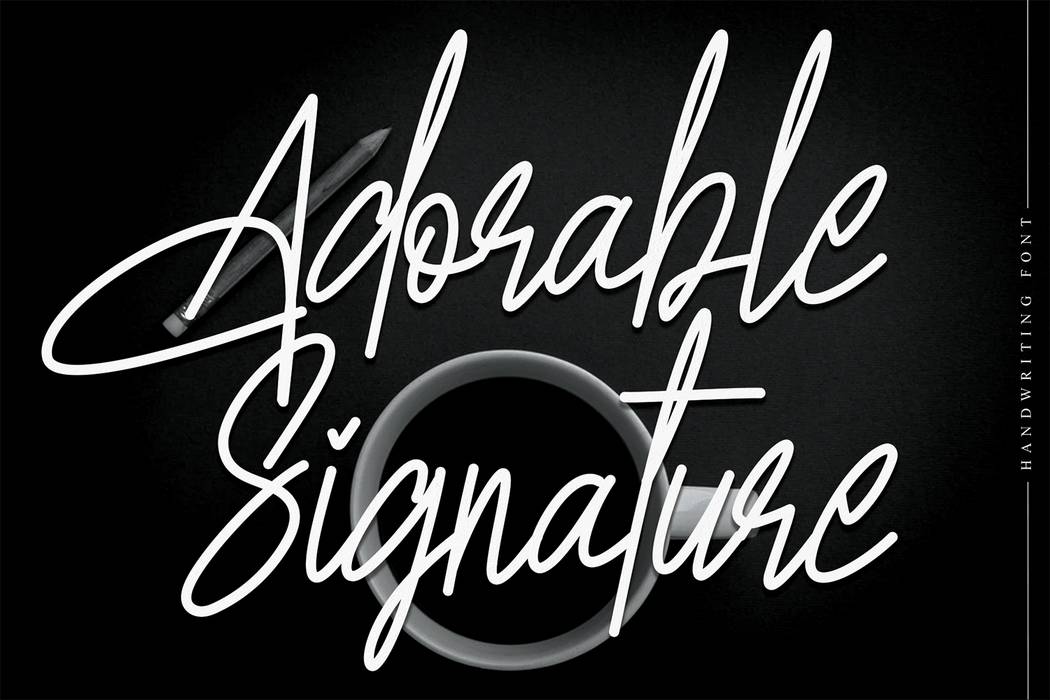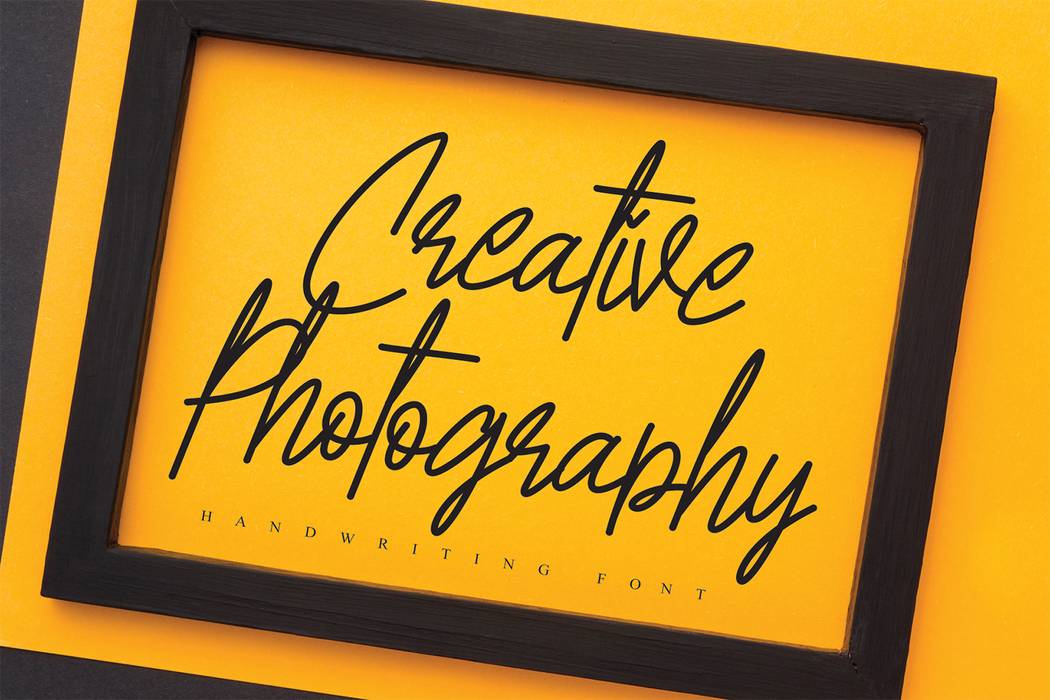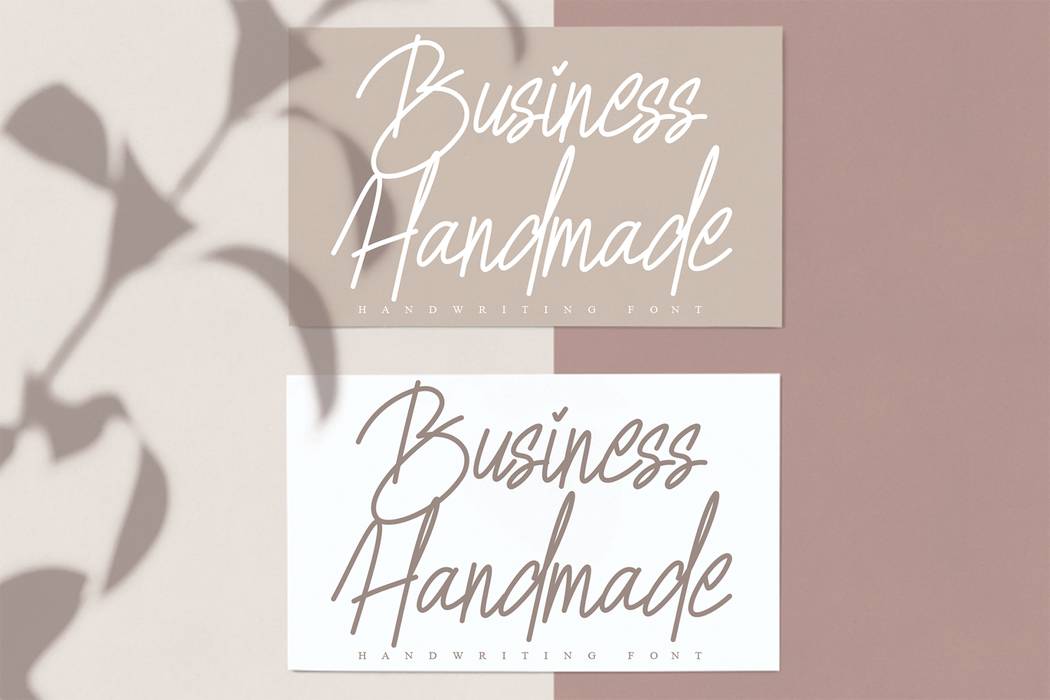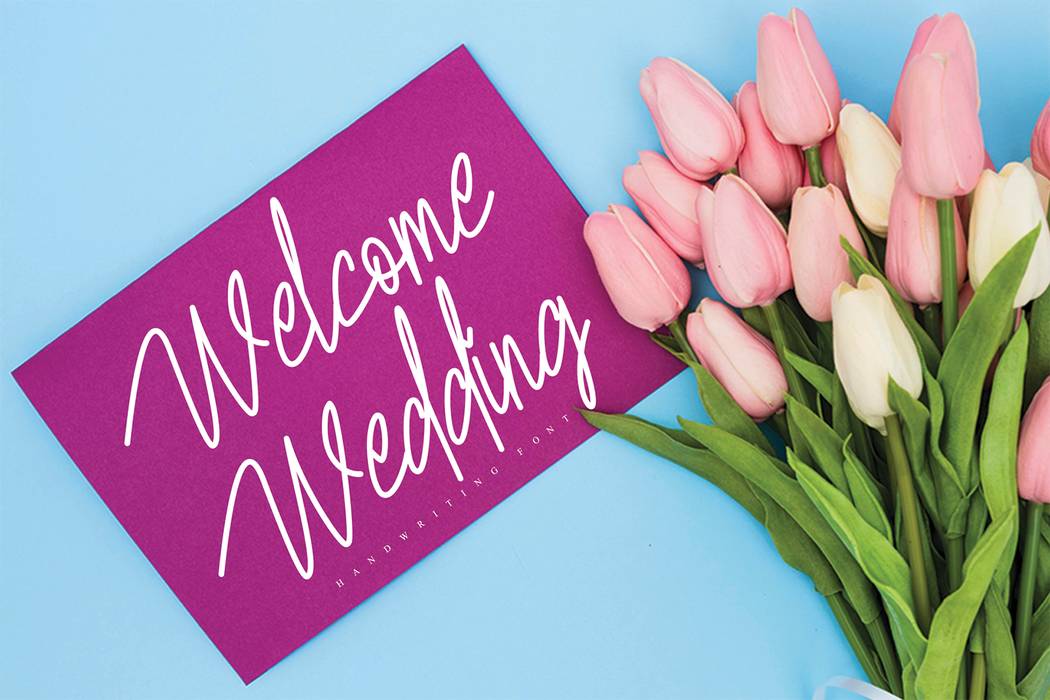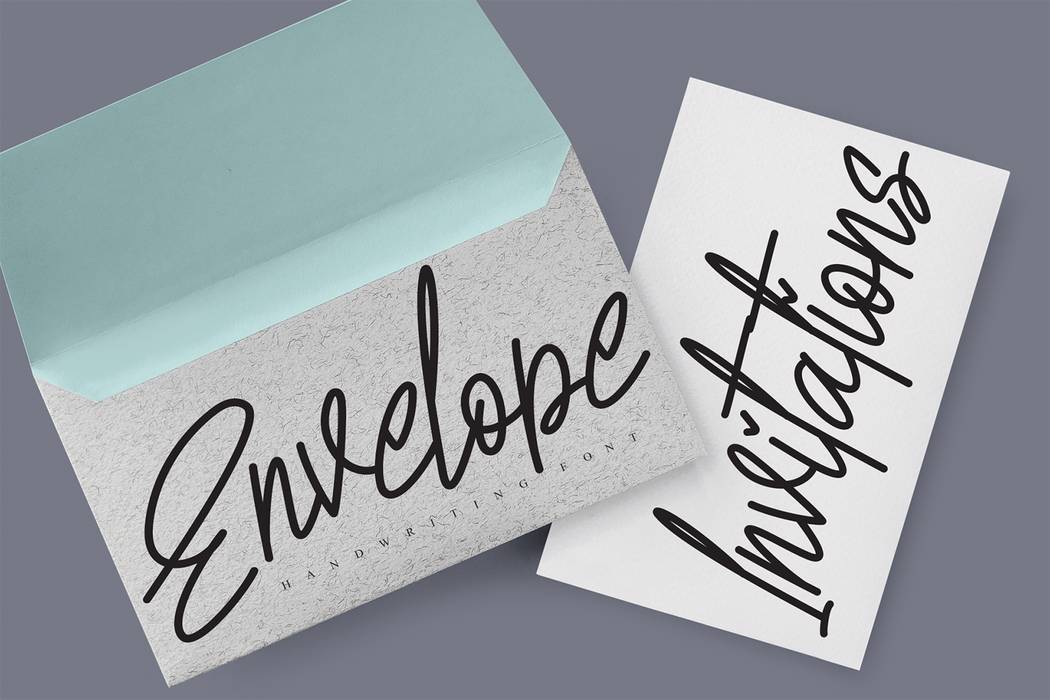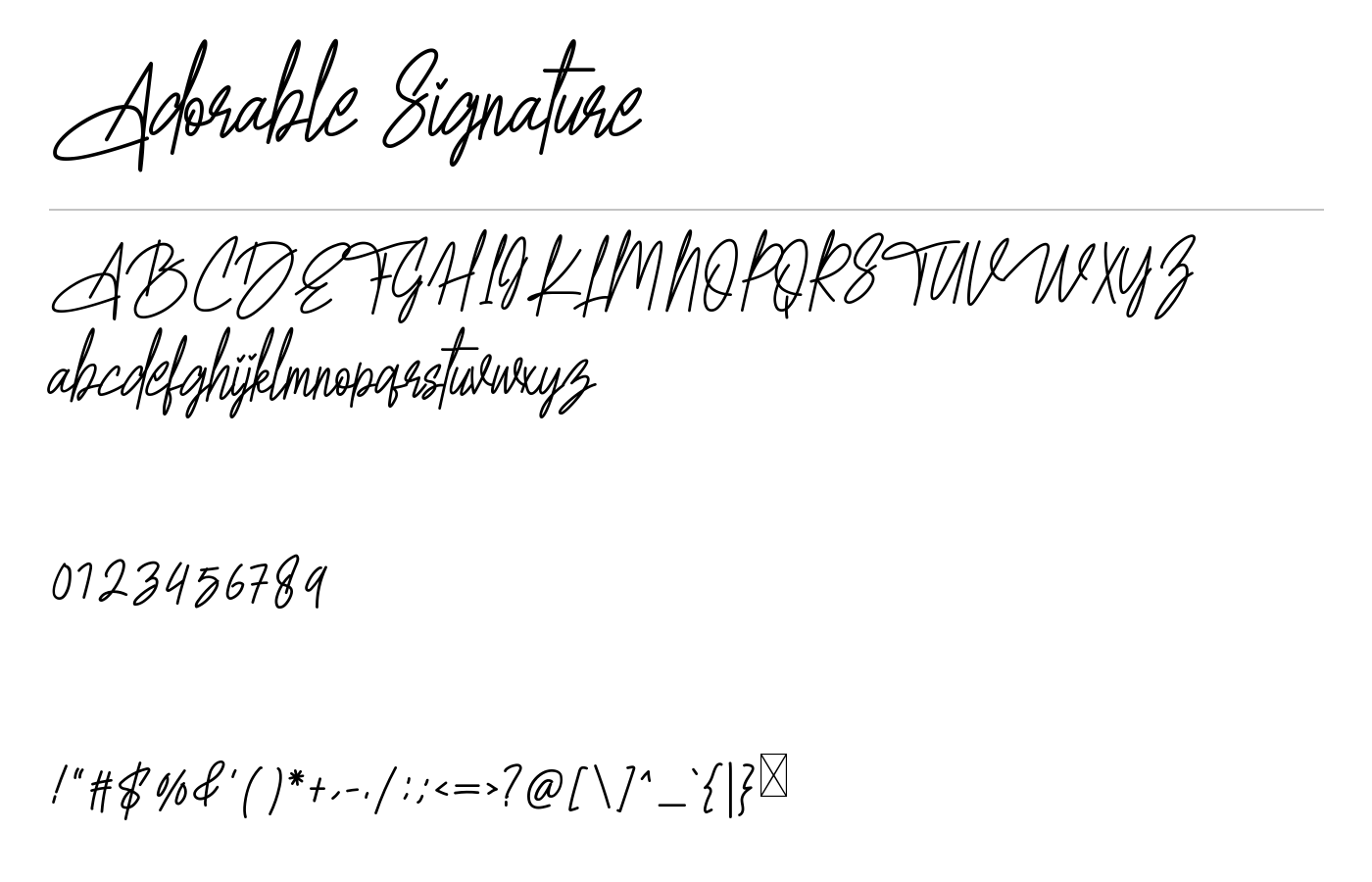
Adorable Signature Font is a slender, handwritten script featuring elegant, flowing strokes that mimic natural cursive writing. Its tall, narrow letterforms with smooth, slightly varied line widths give it a delicate, personal feel, perfect for branding and designs that want to convey sophistication and warmth. This font works beautifully for logos, invitations, and stylish editorial projects where an intimate, handcrafted touch is desired.
Adorable Signature Font